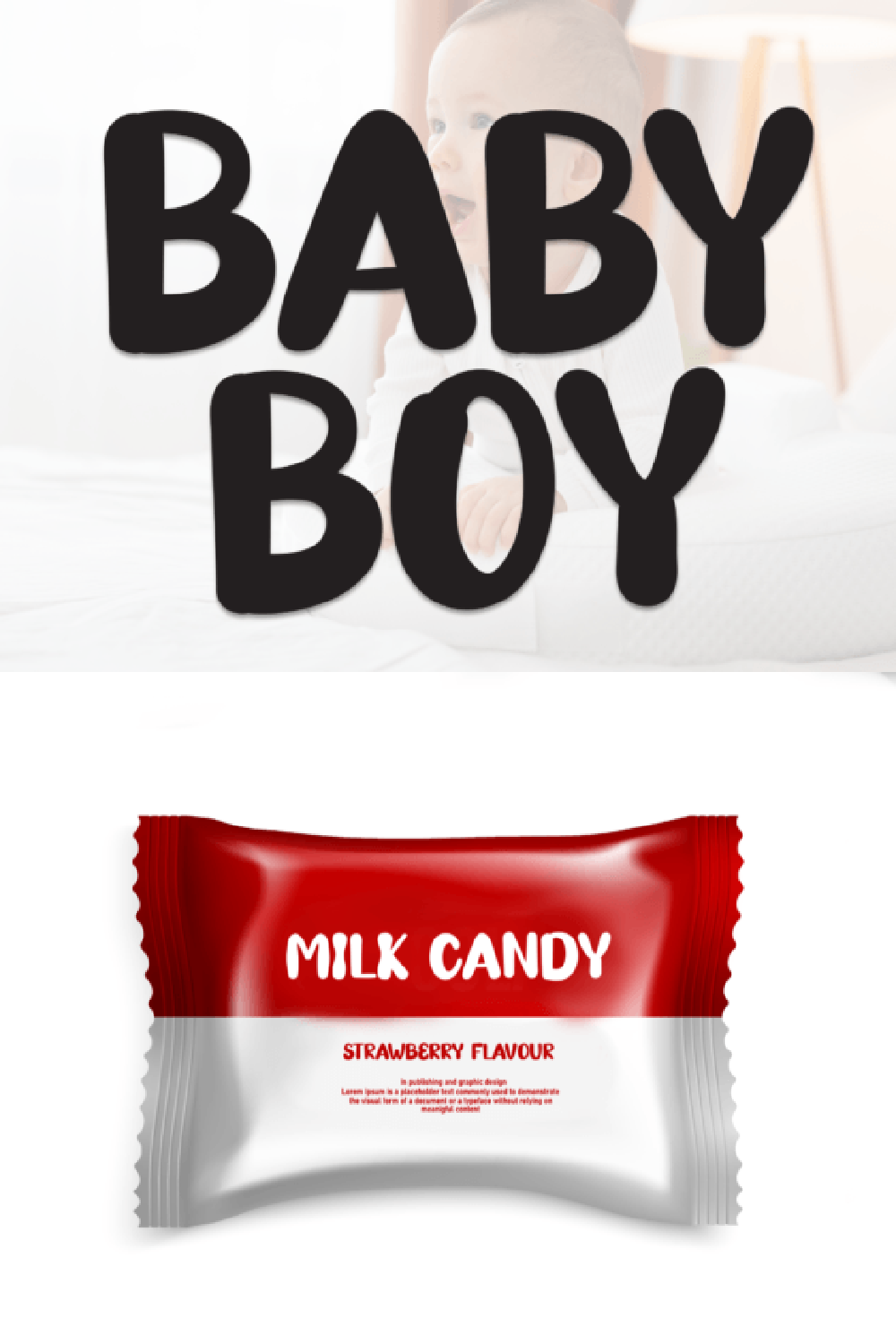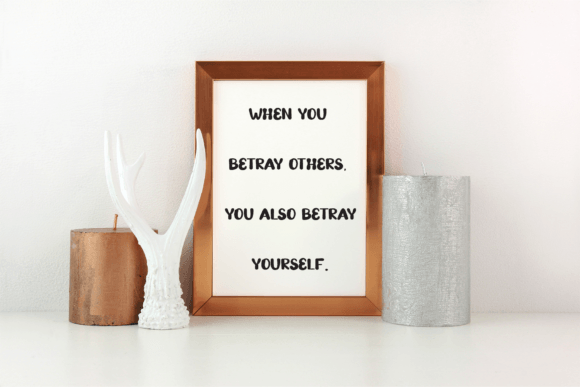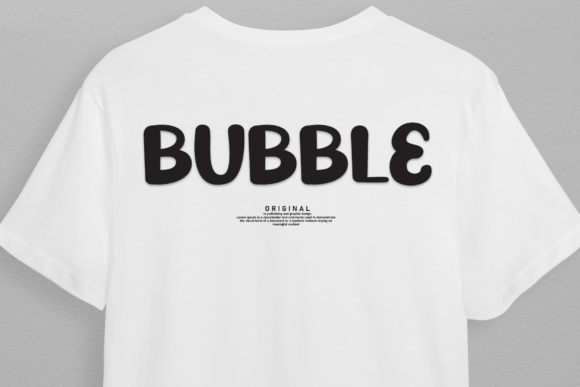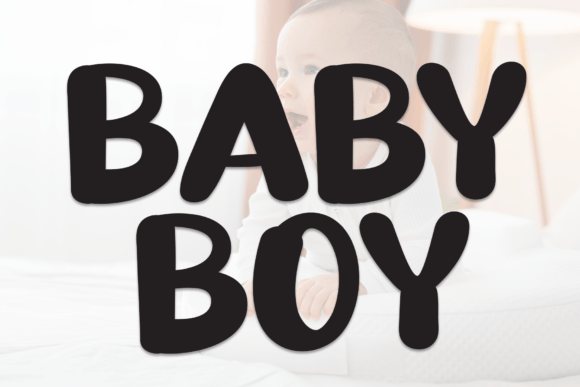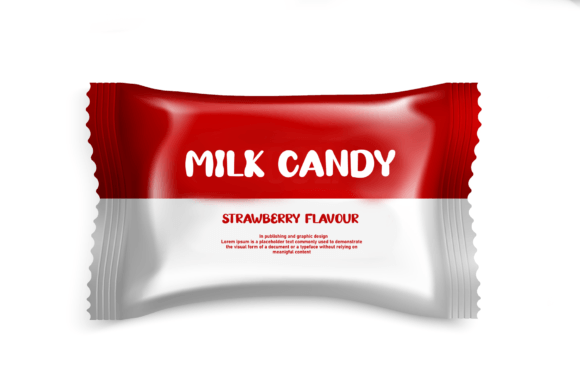
About the Baby Boy Font
Get ready to be inspired by Baby Boy Font, a fresh and dynamic typeface for modern creators. Baby Boy is a sweet and friendly handwritten font. Cute yet versatile, this font is ideal for writing wedding invitations, cards, or any other design that might need a lovely touch!
Baby Boy Font Usage Examples